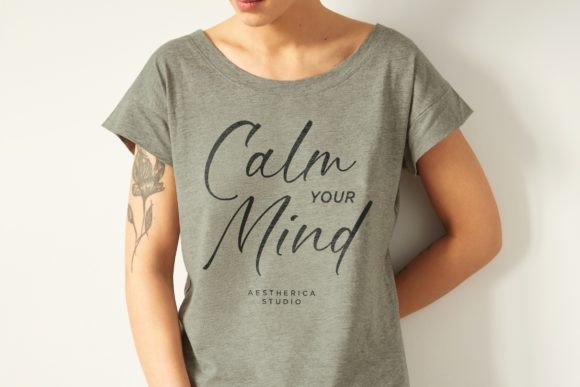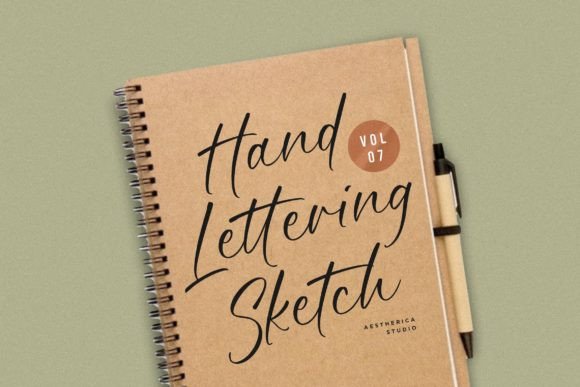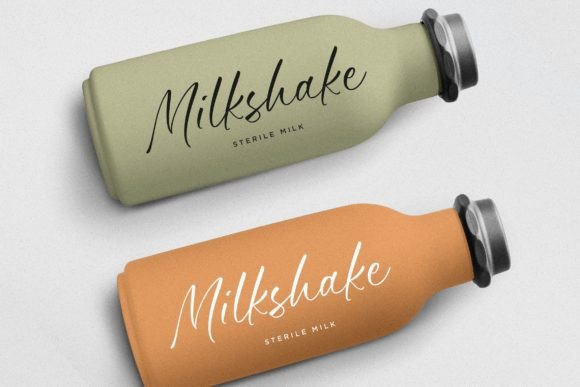
Introduction to Mystica Font
Mystica is perfect for product packaging, branding project, megazine, social media, weddings, or just used to express words above the background.
Key Features of Mystica Font
Why Choose Mystica Font?
Mystica Font offers exceptional quality and versatility, making it a valuable addition to your design toolkit. Whether you’re creating for personal projects or commercial use, Mystica Font delivers professional results.